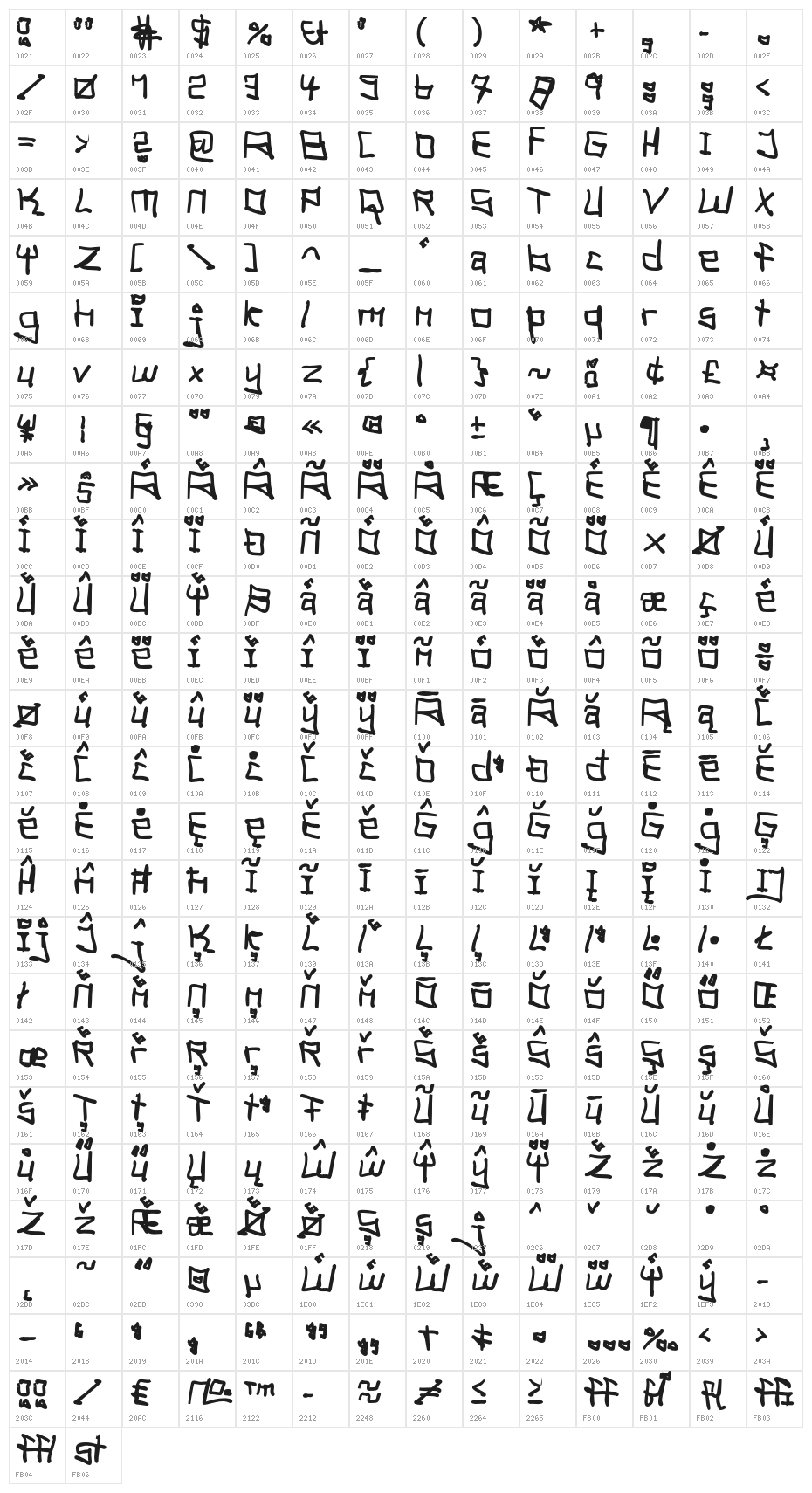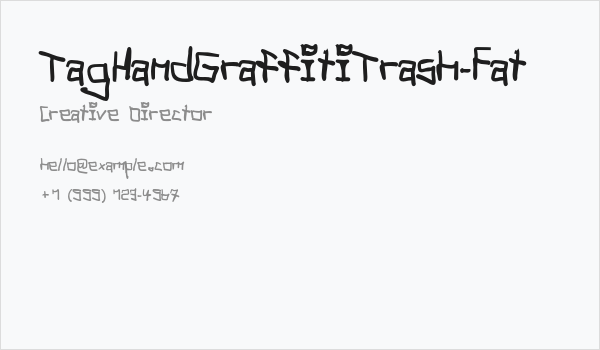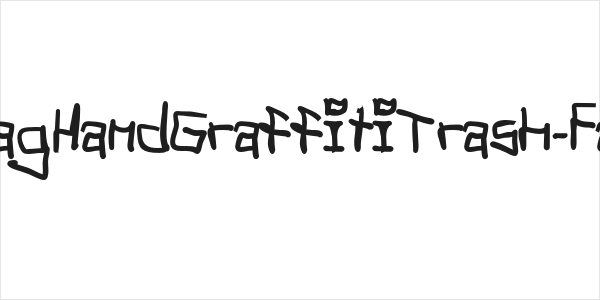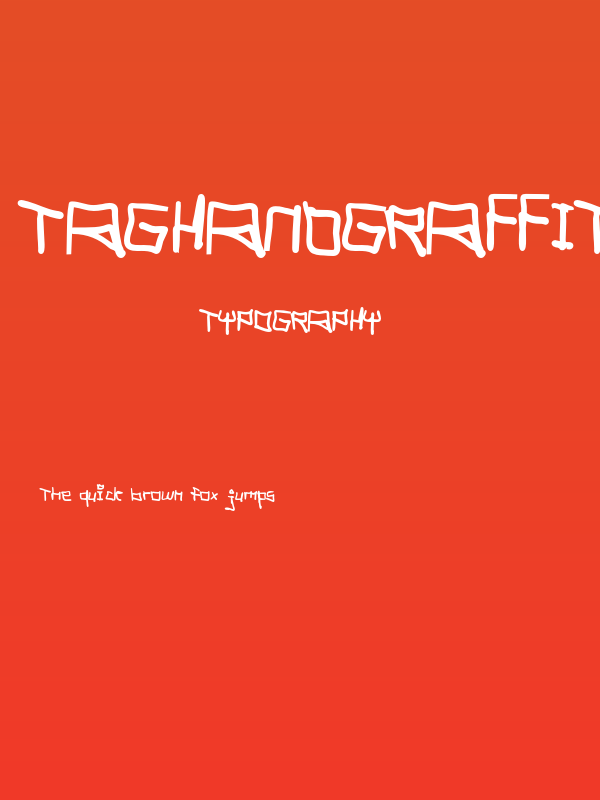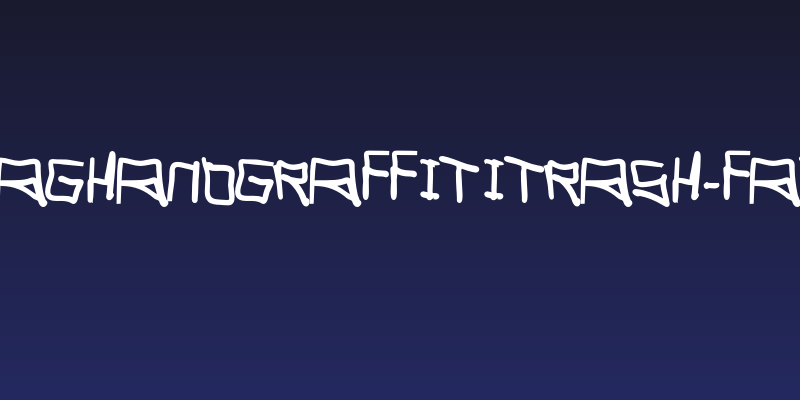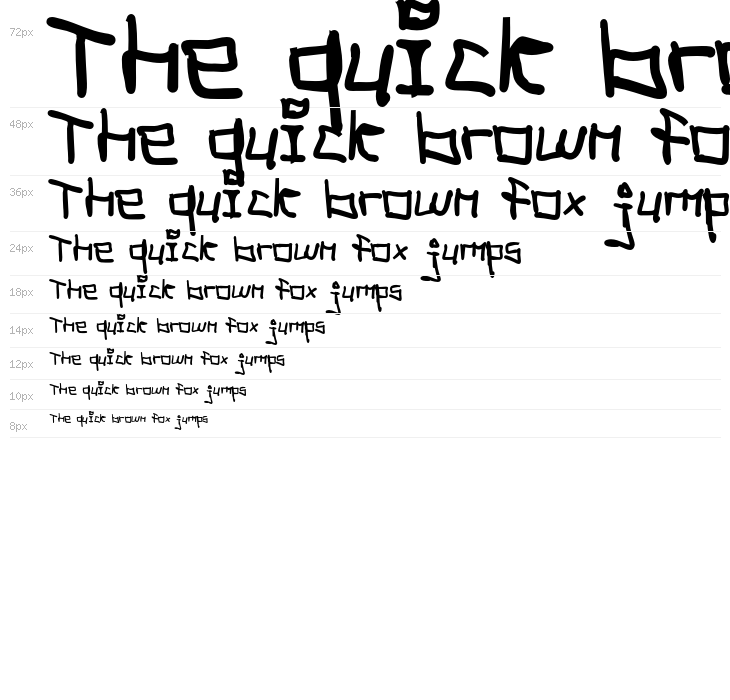
TagHandGraffitiTrash-Fat Font
TagHandGraffitiTrash-Fat Description
This font exudes a bold, urban graffiti style with its thick, uneven strokes and hand-drawn appearance. Each character is uniquely crafted, giving a sense of spontaneity and artistic flair. The uppercase and lowercase letters maintain a consistent style, with angular lines and a slightly distorted form that adds to the street art aesthetic. Numbers and special characters follow the same design principles, ensuring a cohesive look across all elements. The font's raw and edgy vibe makes it perfect for projects that require a touch of rebellion and creativity.
| Overall Style | Urban, Graffiti, Artistic |
| Use Case | Logos, Posters, Creative Displays |
| Proposed Projects | Ideal for street art projects, urban-themed posters, edgy branding, and creative event flyers. |